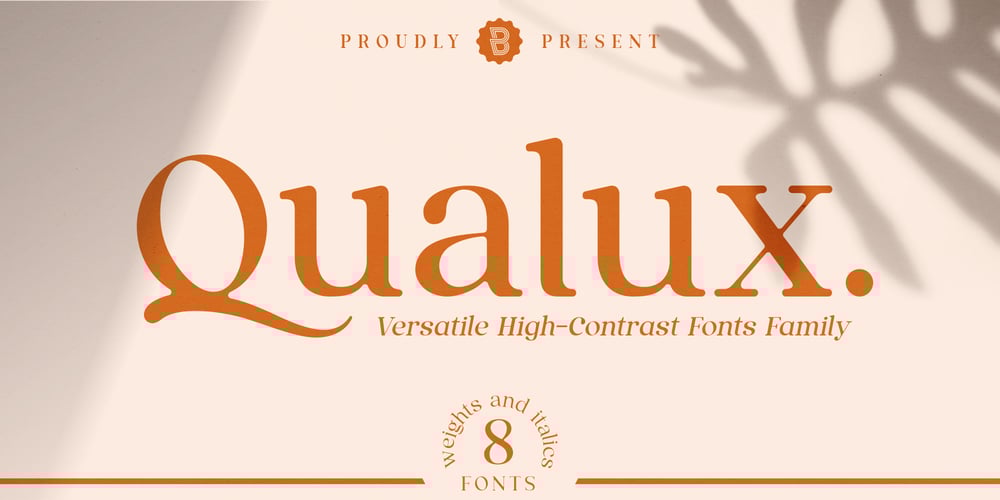
Qualux
Qualux font
Qualux Font Family was designed by Bayu Noor Witarsa and published by Asenbayu. Qualux contains 8 styles and family package options. Qualux is a versatile high-contrast serif font family. Qualux comes from the words Quality and Luxury. This font has vintage characteristics with a luxurious style in light, but also has a friendly and playful style in bold. Each glyph has a soft, rounded tip. This font is suitable for many various projects such as logos, branding, magazines, signage, fashion and many more.Qualux consists of 8 styles: Light, Light Italic, Regular, Italic, Semibold, Semibold Italic, Bold, and Bold Italic. These fonts feature Kerning, Standard Glyph, Stylistic Alternate & Ligature, Numeral, Symbol, and Multilingual Supports.